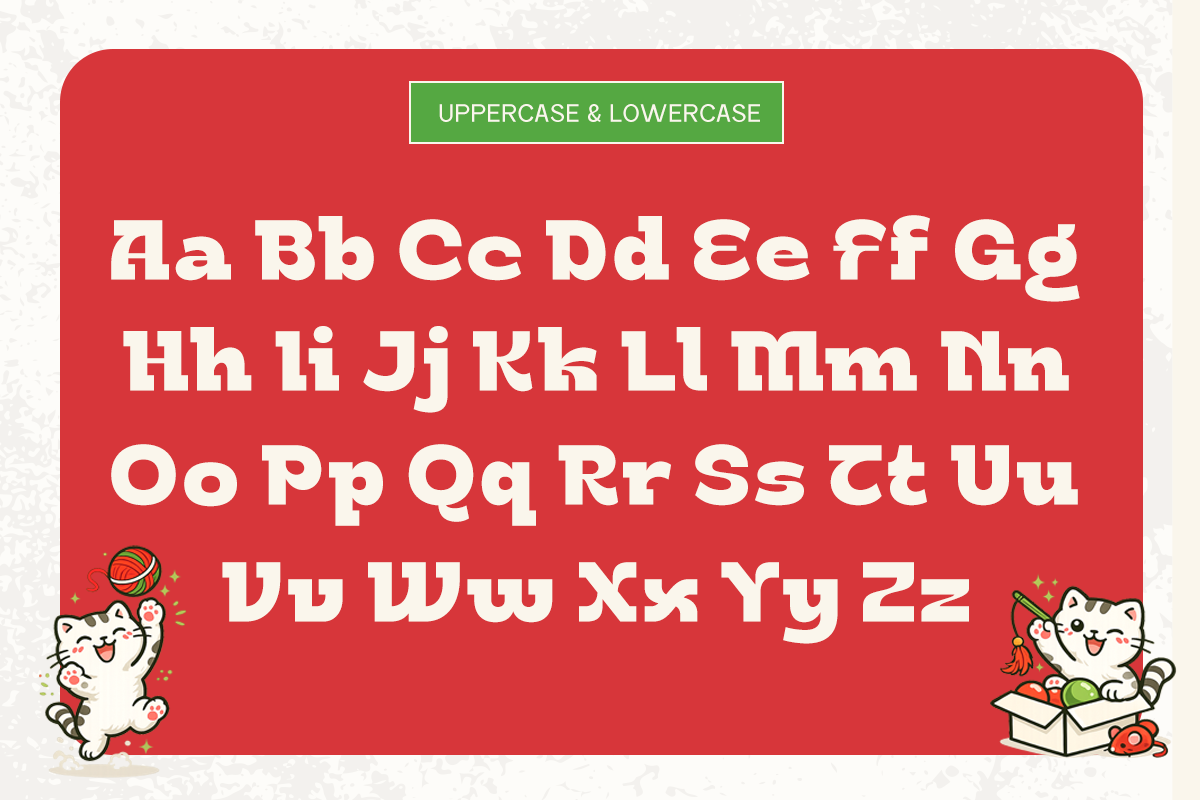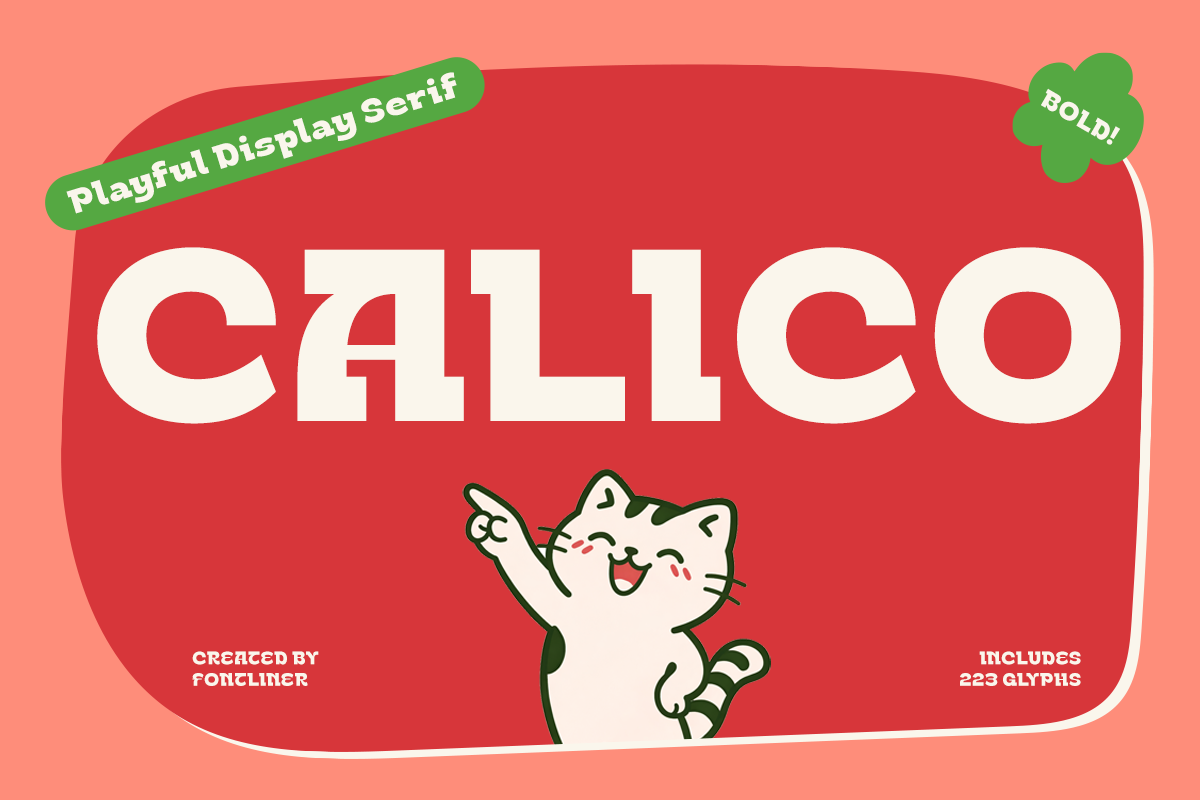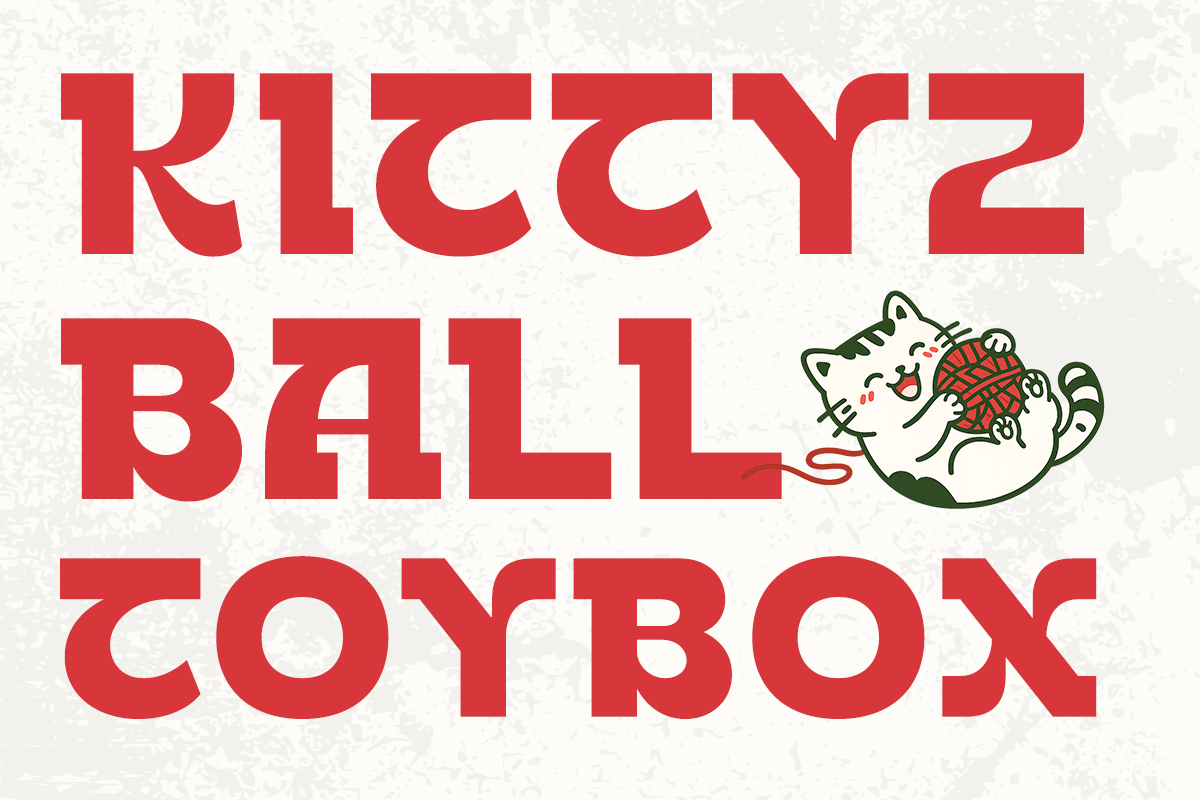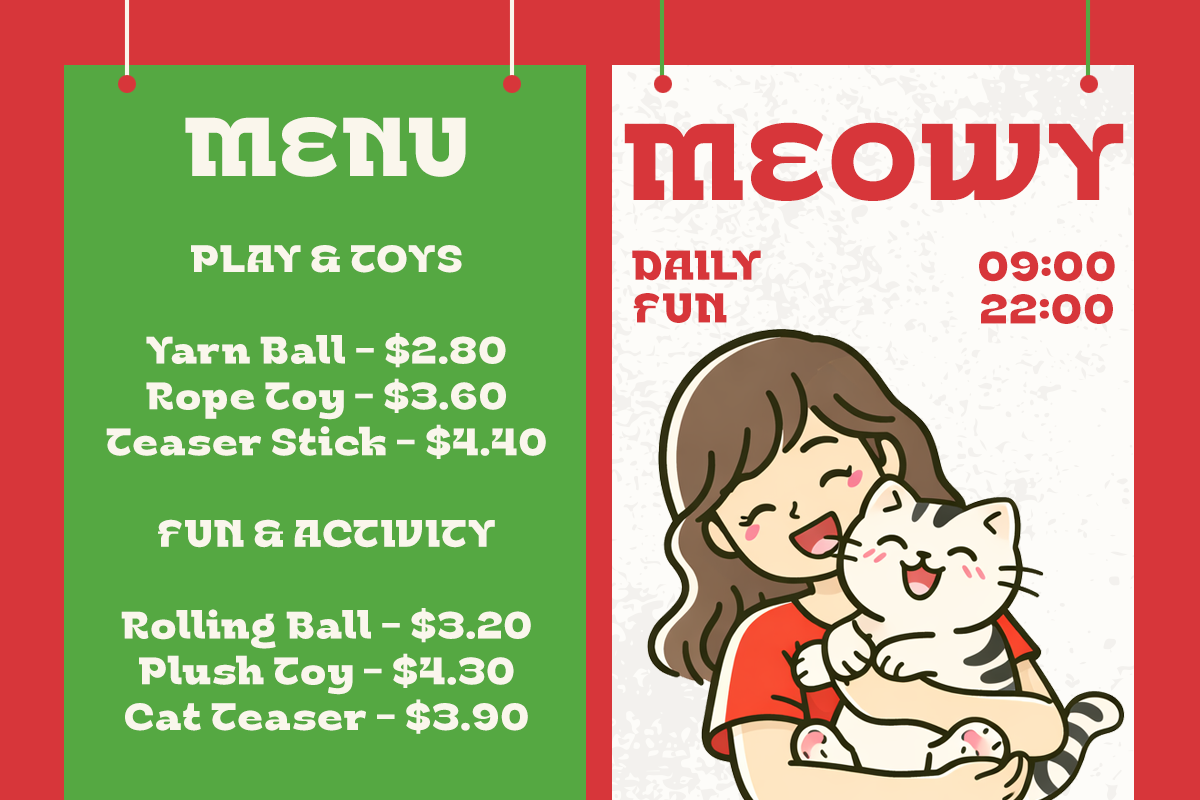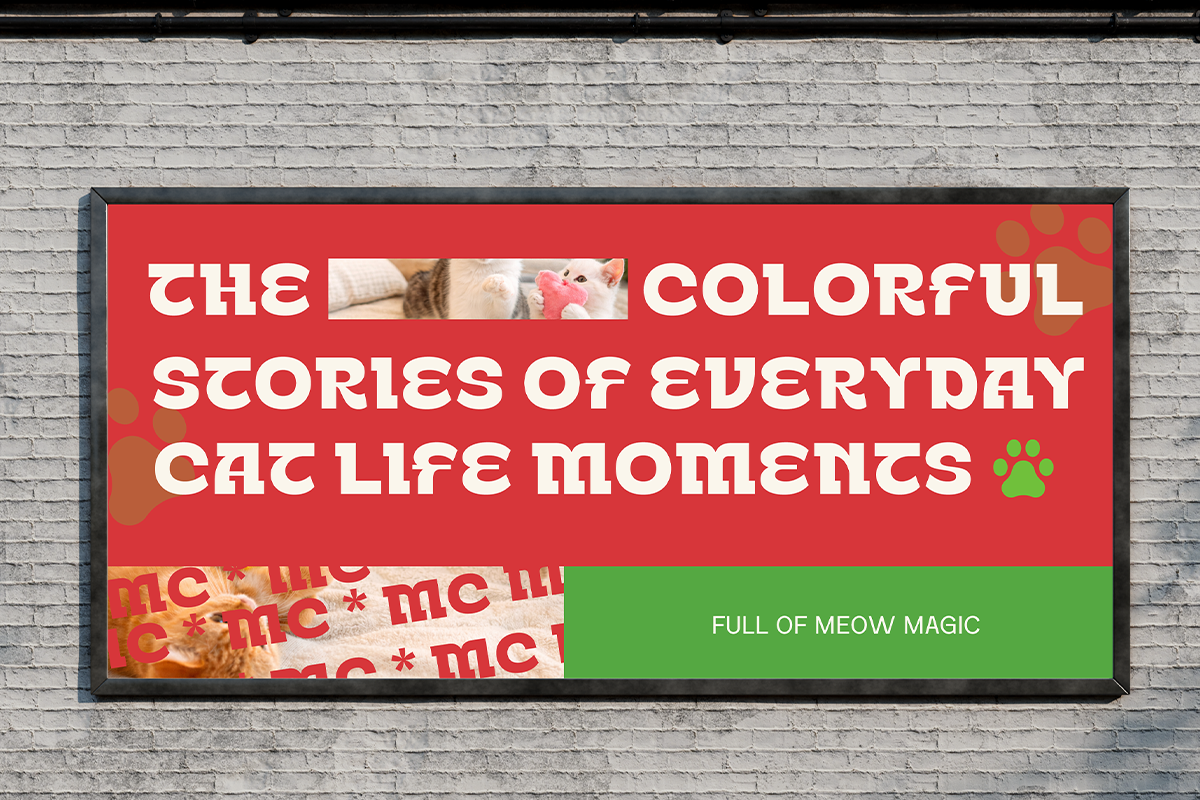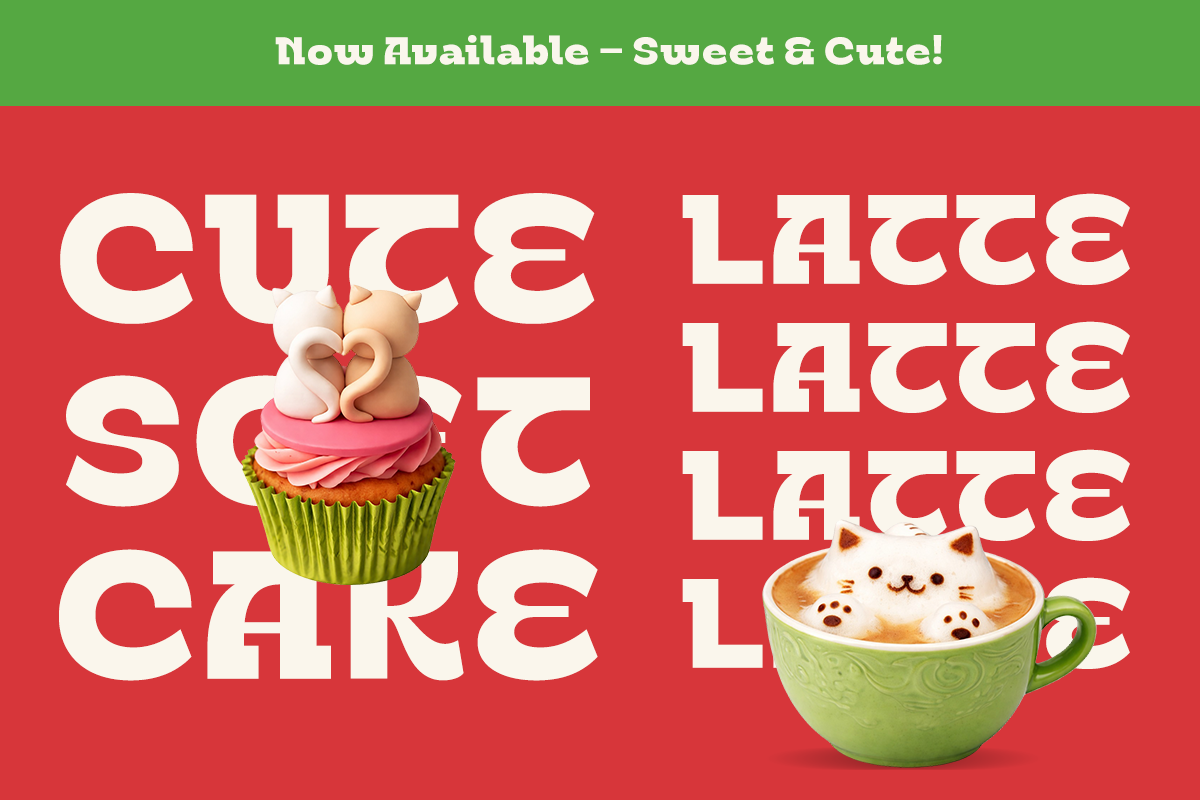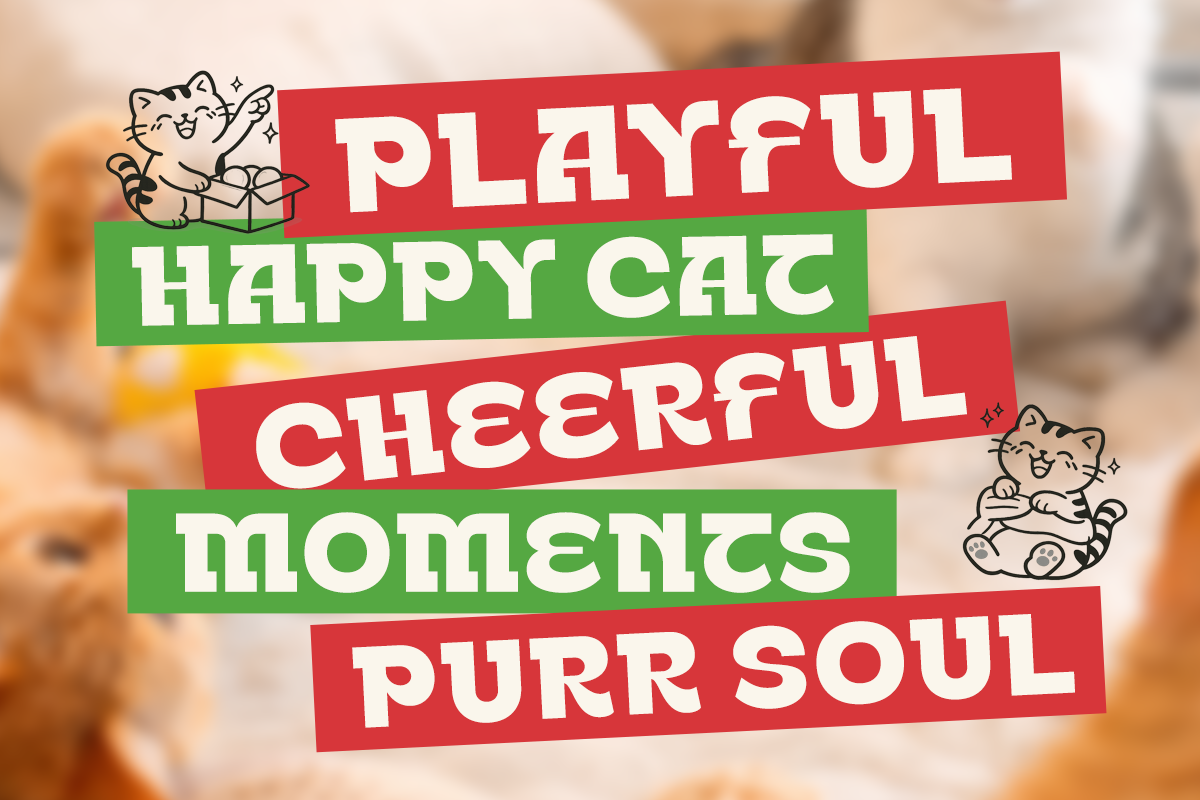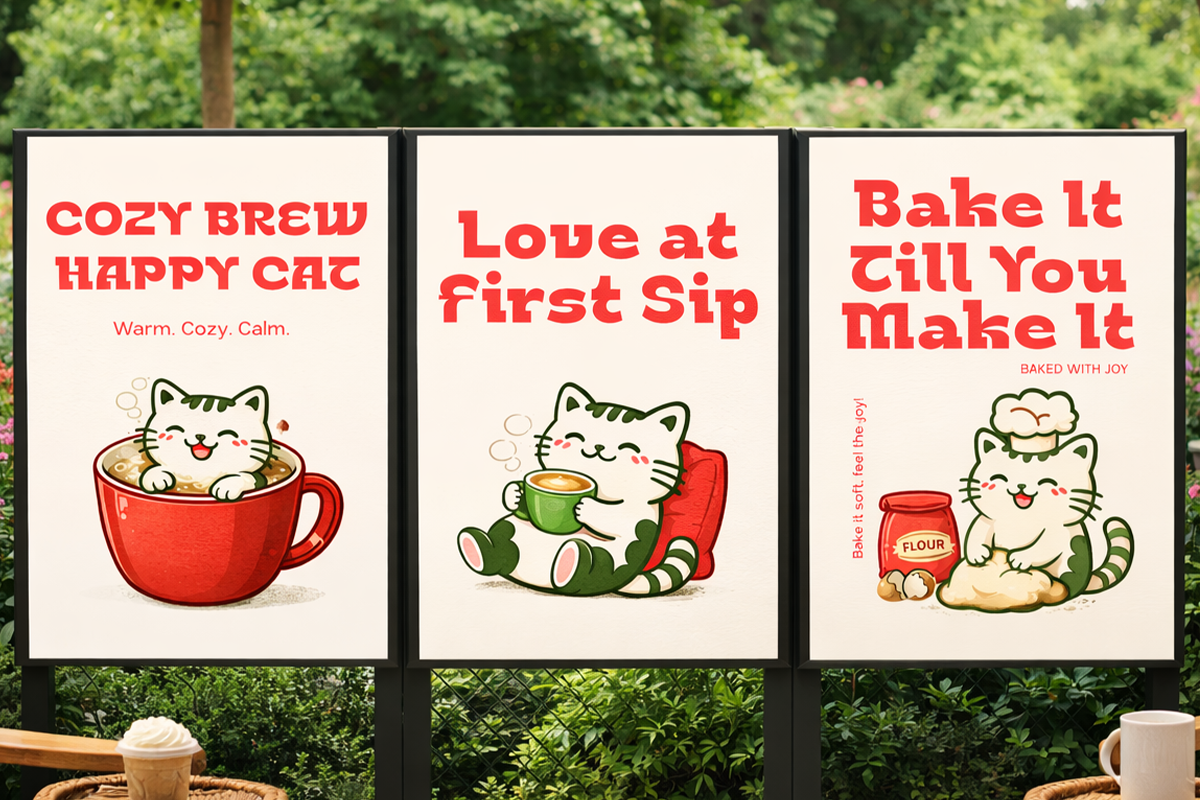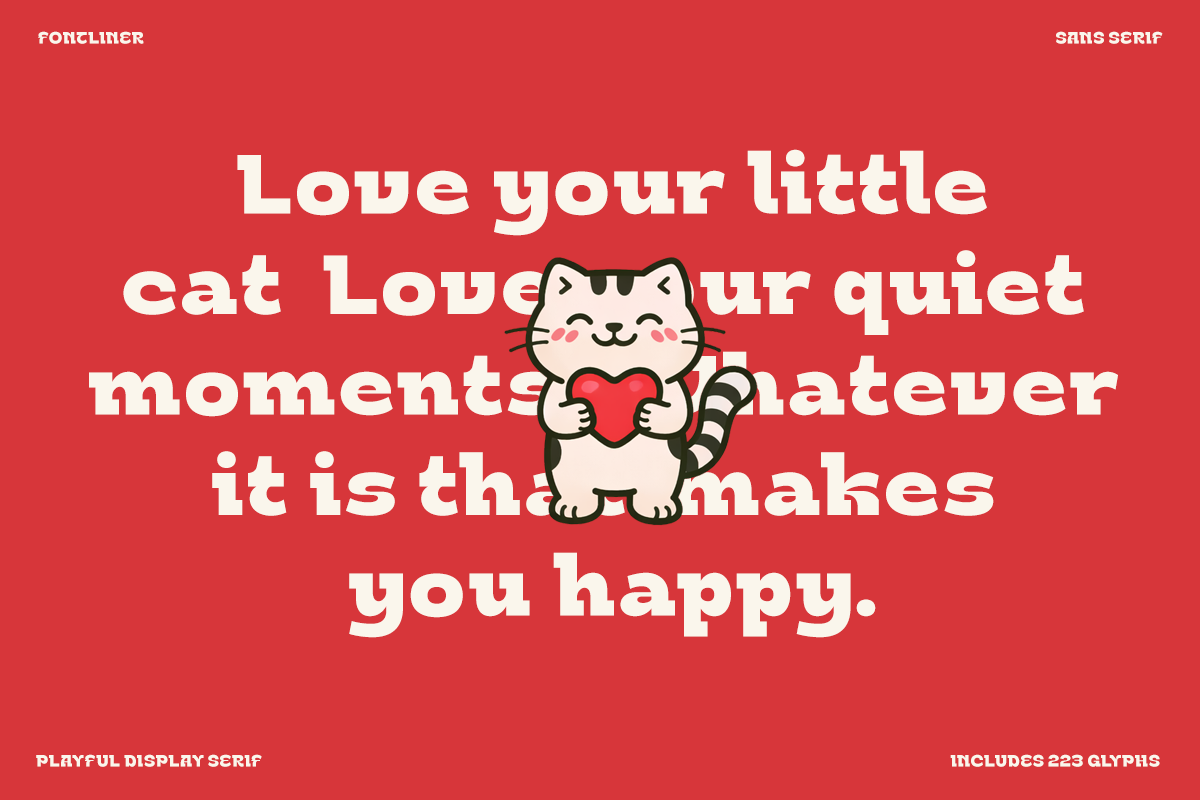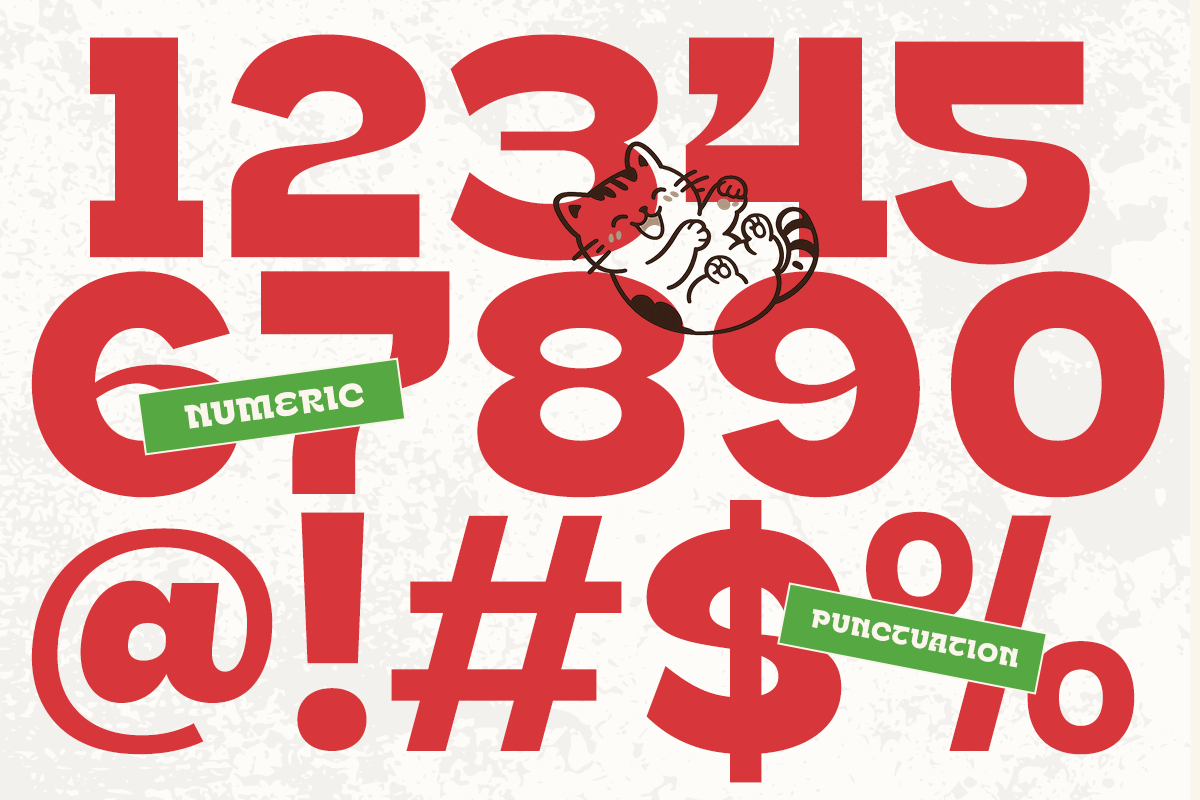
Calico - Bold Playful Serif Font
Calico is a playful display serif font designed to bring warmth, charm, and personality into your creative projects. Inspired by soft curves and bold retro forms, this typeface blends a friendly aesthetic with strong visual impact, making it perfect for eye-catching headlines and standout branding.
With its chunky letterforms and smooth serif details, Calico delivers a nostalgic yet modern feel. It works beautifully across a wide range of uses—from kids-themed designs, food packaging, and playful logos to social media graphics, posters, and merchandise. The balanced contrast ensures readability while keeping a fun and approachable tone.
Calico comes with uppercase and lowercase characters, multilingual support, giving you flexibility for global and creative applications. Whether you're building a cheerful brand identity or crafting bold display text, Calico adds a lively and memorable touch.
Multilingual Suuport
Perfect for fun branding